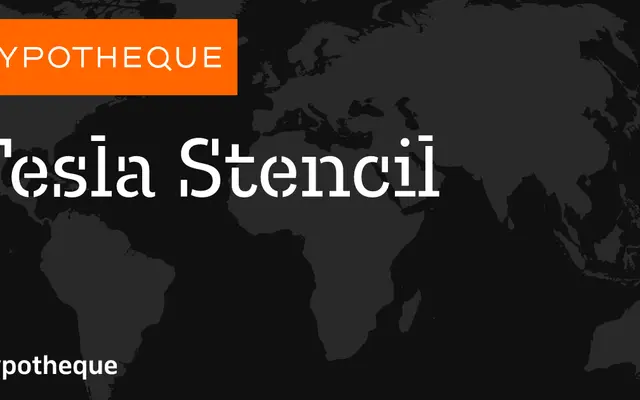
Tesla Stencil
A stencil variant within Typotheque's extended Tesla type system, spanning seven weights with matching italics and a variable font option.
Part of the Tesla system alongside slab, mono, and caps subfamilies, Tesla Stencil runs from Hairline to Bold with full italic counterparts across each weight. A variable font version is also available, offering fluid control across the weight axis. The system's coherence makes it suited to identities and editorial work where stencil character is needed without sacrificing typographic range.
The stencil construction is the defining feature, placing this firmly in the display category with a stencil subcategory. It is part of the broader Tesla type system, which also includes slab, mono, and caps subfamilies.